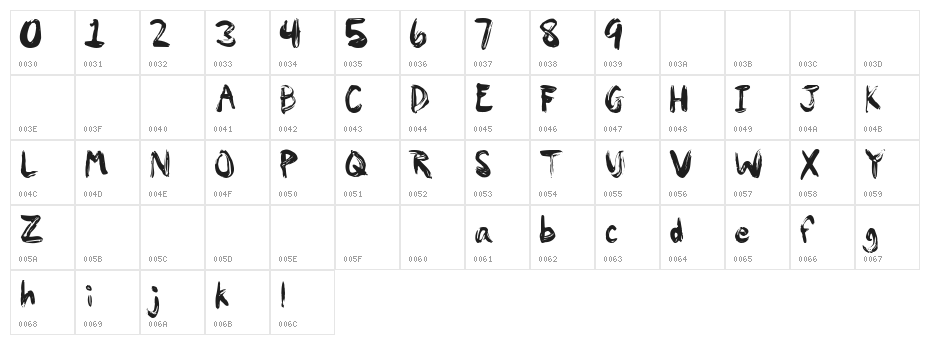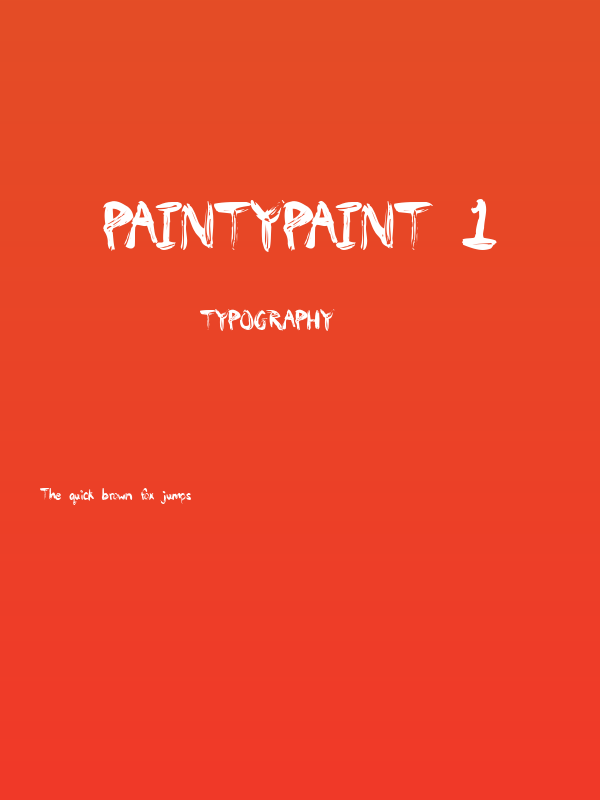
PaintyPaint 1 Font
PaintyPaint 1 Description
This font features a bold, expressive style reminiscent of brush strokes, giving it a dynamic and artistic appearance. The characters are crafted with uneven edges and varying thickness, creating a sense of movement and energy. Each letter appears as if it has been painted with a brush, with visible streaks and splatters that add to its raw, handcrafted feel. The uppercase and lowercase letters maintain a consistent style, while the numbers and special characters are equally expressive, ensuring a cohesive look across all text. This font is ideal for projects that require a bold, artistic touch.
| Overall Style | Artistic, Expressive |
| Use Case | Headlines, Posters, Artistic Designs |
| Proposed Projects | Ideal for art-related projects, posters, album covers, and any design needing a bold, creative touch. |